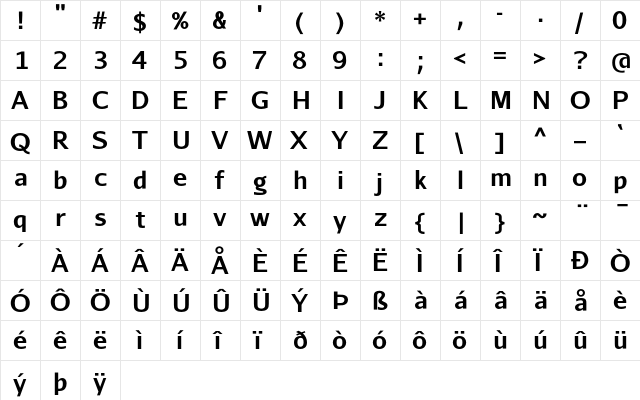
Aurulent Sans Bold
Design Context for Aurulent Sans Typeface
Aurulent Sans is a composed and adaptable typeface that performs quietly and consistently across a wide range of design contexts. Its bold stroke weight gives it real presence on the page.